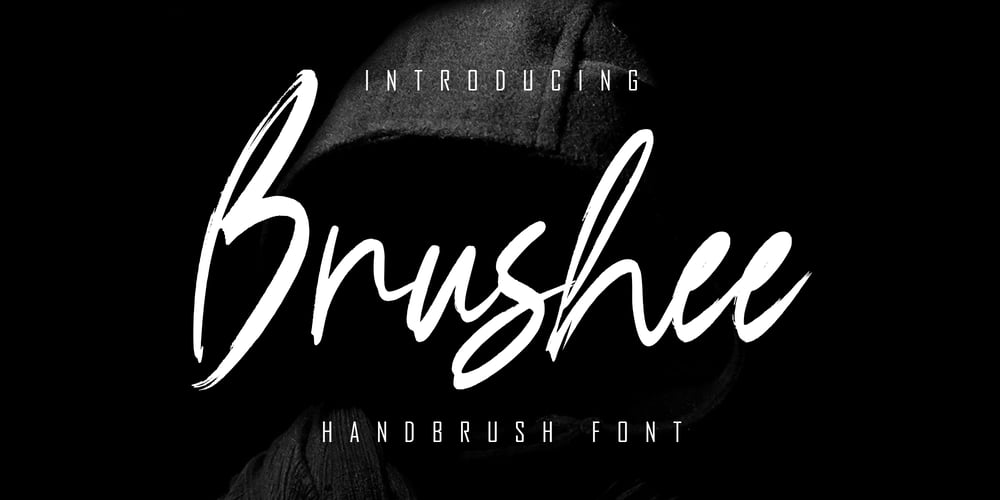
Brushee Font Family was designed by Irfan Mahmudin and published by Skiiller Studio. Brushee contains 1 styles and family package options. Font Brushee is a modern textured font. It is suitable for food posters, for logos, music covers, clothing, and many cool design projects.